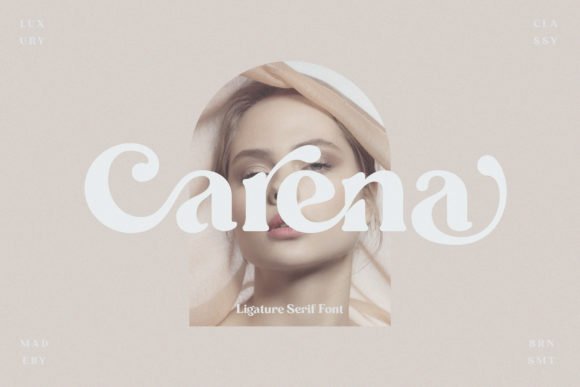
Have you ever stared at a blank page, waiting for inspiration to strike? For designers, this moment can be a daily occurrence. But what if I told you there’s a font that can bring your ideas to life? Introducing the Carena Font, a classy and stylish serif font designed to elevate your designs and make them truly unforgettable.
Carena Font is more than just a font – it’s a tool to help you create stunning wedding invitations, beautiful stationery art, and eye-catching social media posts. Its incredibly versatile style makes it perfect for a wide range of projects, from elegant branding to playful graphics. Whether you’re a seasoned designer or just starting out, Carena Font is an invaluable asset to have in your toolkit.
Carena Font Key Features
- Unique Characteristics: Carena font features a modern, elegant design with a unique blend of geometric and organic elements, making it suitable for various design applications.
Carena Font Review
I’ve had the chance to work with Carena Font, and I must say it’s been an interesting experience. Here are my thoughts:
- Unique design: Carena Font has a distinct, elegant look that sets it apart from other fonts. Its flowing curves and subtle flair make it perfect for titles and headings.
- Legibility: Despite its ornate design, Carena Font is surprisingly easy to read, even at smaller font sizes.
- Font pairability: Carena Font pairs well with a variety of font styles, making it a great choice for designers who like to mix and match fonts.
- Readability at very small sizes: While Carena Font is legible, it can become difficult to read when reduced to very small sizes (e.g., 8pt or smaller).
- Lack of bold weight: The font only comes in regular and italic weights, which can limit its use in certain design contexts.
Overall, I think Carena Font is a great choice for designers who want to add some elegance and sophistication to their designs. However, it may not be the best fit for projects that require very small font sizes or bold typography.
Carena Font works well for titles, headings, and body text in Canva designs.
Carena Font is ideal for creating custom graphics, logos, and illustrations in Adobe Creative Cloud applications.
Carena Font works well for presentations, reports, and documents where a clean and modern font is desired.
Carena Font is suitable for a variety of applications, including:
1. Branding and logos
2. Infographics and data visualization
3. Presentations and reports
4. Digital signage and displays
5. Web design and development
Alternatives to Carena Font
Montserrat is a sans-serif font designed by Julieta Ulanovsky in 2011. It’s a modern, geometric font suitable for digital interfaces and titles. Use Montserrat for its clean and minimalist look, ideal for modern websites, mobile apps, and corporate branding. Compared to Carena Font, Montserrat is more geometric and has a more open feel, making it perfect for digital interfaces.
Lato is a sans-serif font designed by Łukasz Dziedzic in 2010. It’s a modern, elegant font suitable for digital and print media. Use Lato for its friendly and approachable feel, ideal for websites, magazines, and books. Compared to Carena Font, Lato is more rounded and has a softer feel, making it perfect for content-heavy applications.
Open Sans is a sans-serif font designed by Steve Matteson in 2010. It’s a clean and modern font suitable for digital interfaces and body text. Use Open Sans for its readability and versatility, ideal for websites, mobile apps, and documents. Compared to Carena Font, Open Sans is more neutral and has a more balanced feel, making it perfect for general-purpose use.